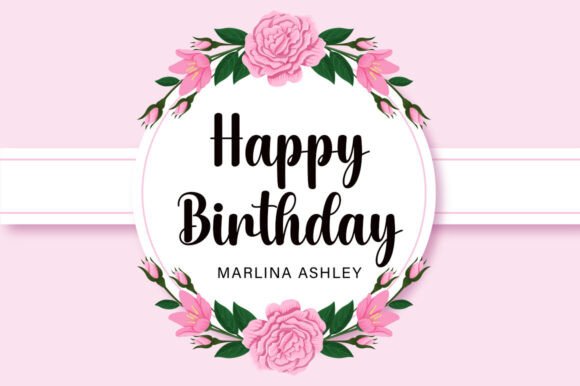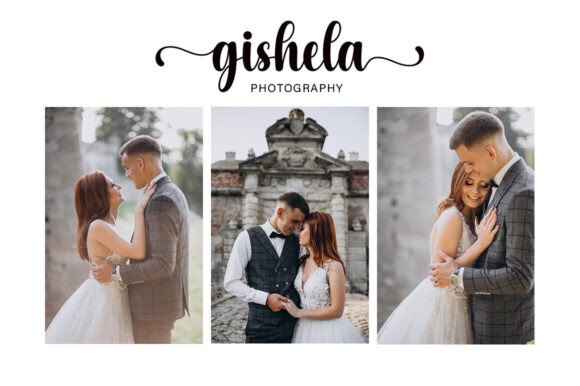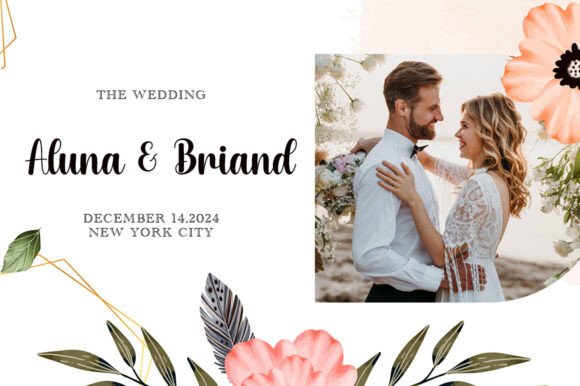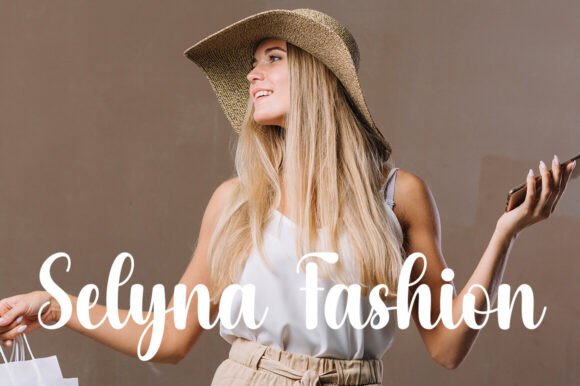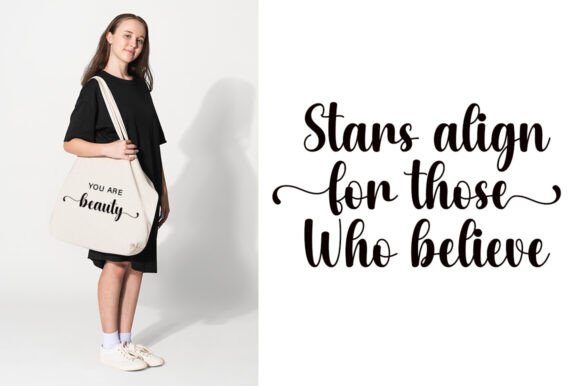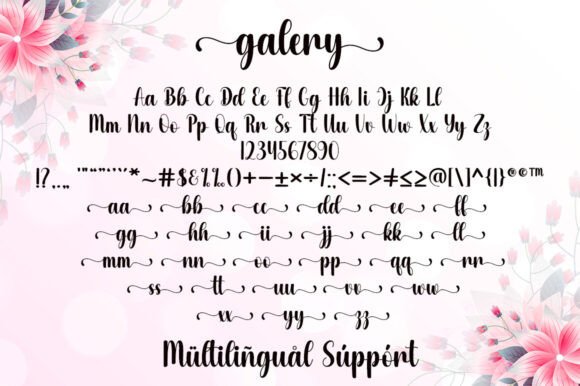
Introduction to Galery Font
There’s something magical about creating a design that feels truly personal, like when you’re crafting a wedding invitation or a heartfelt thank you card. You want every detail to be perfect, from the color palette to the typography. And that’s where the Galery Font comes in – a stylish and elegant handwritten font that adds a touch of sophistication to any design project.
As a designer, you know how valuable it is to have a high-quality design resource that can elevate your creative projects. With the Galery Font, you’ll be able to create stunning visuals with ease, from logos and business cards to quotes and greeting cards. Plus, with its transparent background and PUA encoding, you’ll have access to all the glyphs and alternates you need to make your designs truly shine.
- High-quality design resource: Galery Font offers a range of unique and stylish fonts perfect for creative projects.
- Transparent background: The font’s transparent background allows for seamless integration with any design, giving you complete control over the layout.
- Unique characteristics: Galery Font features a distinctive and modern design aesthetic, perfect for adding a touch of sophistication to your creative project.
Honest Review: Galery Font
I recently had the chance to work with the Galery Font, and I must say it’s been a solid addition to my design resource collection. This high-quality font has been a game-changer for my creative projects, offering a unique aesthetic that sets them apart.
One of the things that works well with Galery Font is its versatility. It’s perfect for both digital and print designs, and its transparent background makes it easy to use with any background image or color. I’ve been using it for a variety of projects, from branding to editorial design, and it’s always delivered.
Here are some of the key benefits I’ve noticed:
- ✨ High-quality design that looks professional and modern
- ✨ Transparent background for easy use with any background image or color
- ✨ Excellent for both digital and print designs
- ⚠️ Limited character set, which can be a problem for more extensive designs
- ⚠️ Not as comprehensive as some other font options, which can limit its use in certain contexts
Overall, I’m impressed with the Galery Font, and I would definitely recommend it to designers looking for a high-quality, free download option. It’s a solid choice for any creative project, and I’m sure it will continue to be a valuable addition to my design resource collection.
Galery Font is a high-quality, free design resource ideal for creative projects. It features a transparent background, making it perfect for use in various design applications.
For optimal results, use Galery Font in combination with other design elements, such as images and graphics. Experiment with different font sizes and colors to achieve the desired effect.
Galery Font is ideal for use in various creative projects, including:
• Social media graphics
• Posters and flyers
• Presentations and documents
• Branding and marketing materials
Yes, Galery Font is a high-quality font designed for use in creative projects. It features a unique and stylish design that is perfect for use in graphic design, web design, and digital art. The font is available in a range of weights and styles, making it a versatile resource for designers.